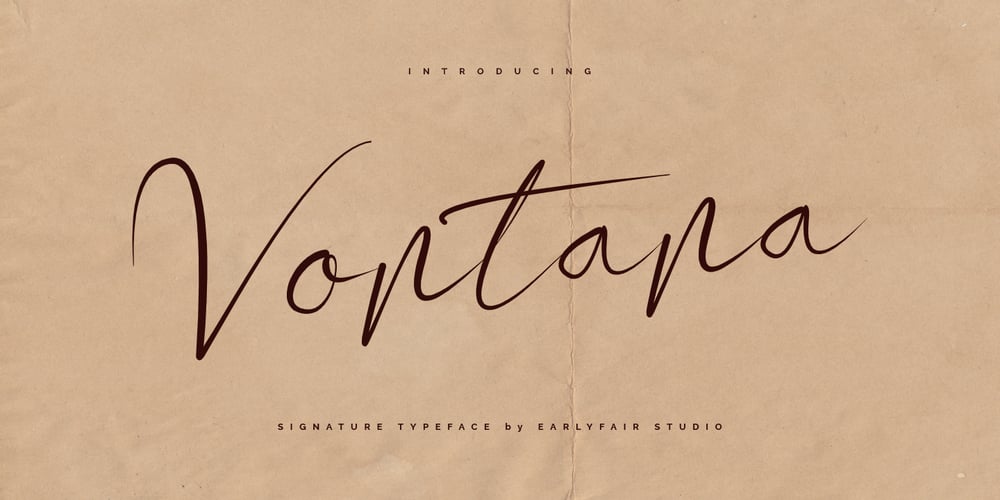
Vontana Font Family was designed by Fahmi Huzaini and published by Earlyfair Studio. Vontana contains 1 styles and family package options. Vontana is incredibly elegant and authentic and contains smooth curves, making it a standout script!